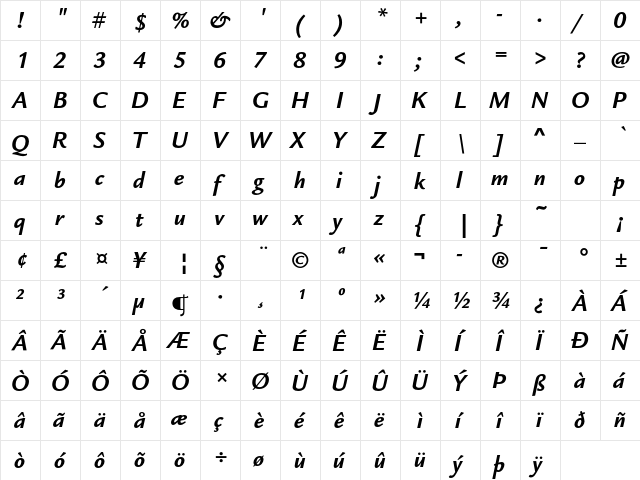
ITC Legacy Sans Std Bold Italic Font Preview
| Designer | Ronald Arnholm |
Design Context for ITC Legacy Sans Std Typeface
ITC Legacy Sans Std offers clean, dependable letterforms without strong stylistic allegiance, making it a practical choice for designers who need flexibility. Its italic angle brings a sense of urgency and motion to the letterforms. The heavy weight commands attention and anchors typographic hierarchies.
Pro Tip: Use ITC Legacy Sans Std for emphasis, pull quotes, and subheadings where its slanted energy can add rhythm to the layout.